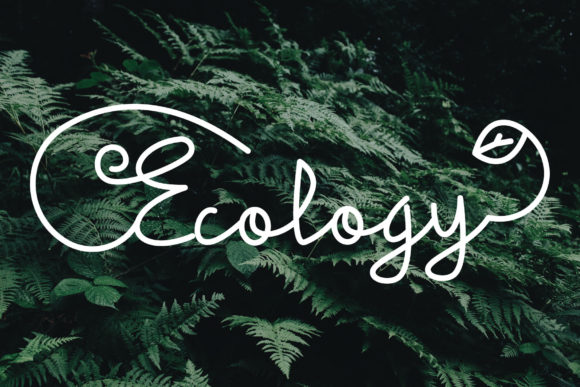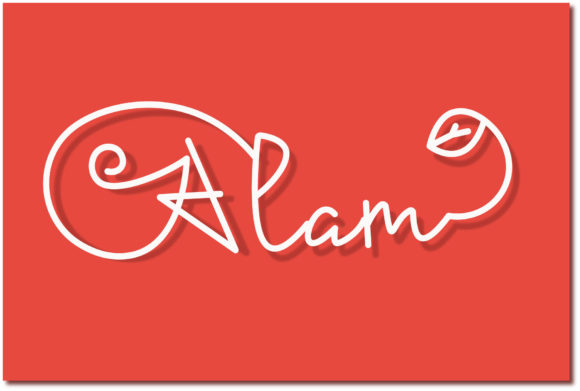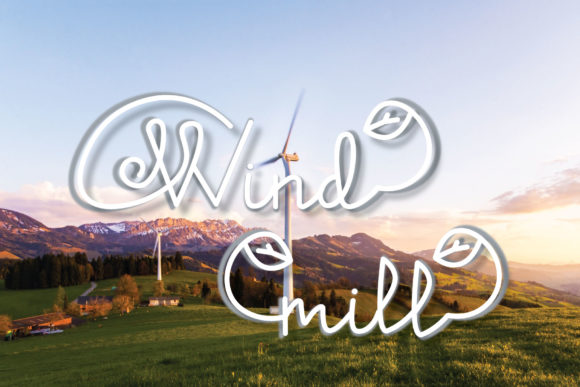
About Save the Planet Font
Save the Planet is a beautiful and delicate handwritten font. It is fit for ecology related designs as well as any other nature related idea. Save the Planet is PUA encoded which means you can access all of the glyphs and swashes with ease!